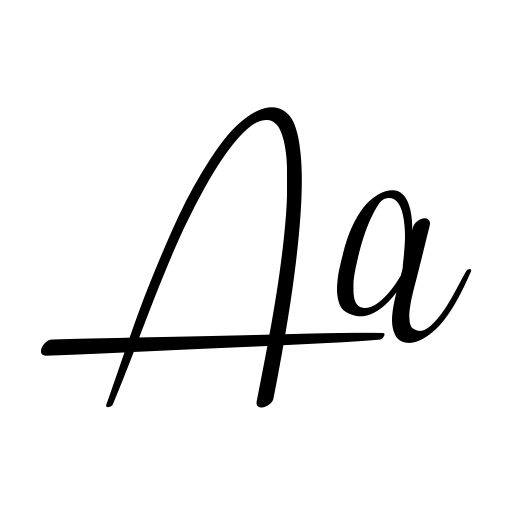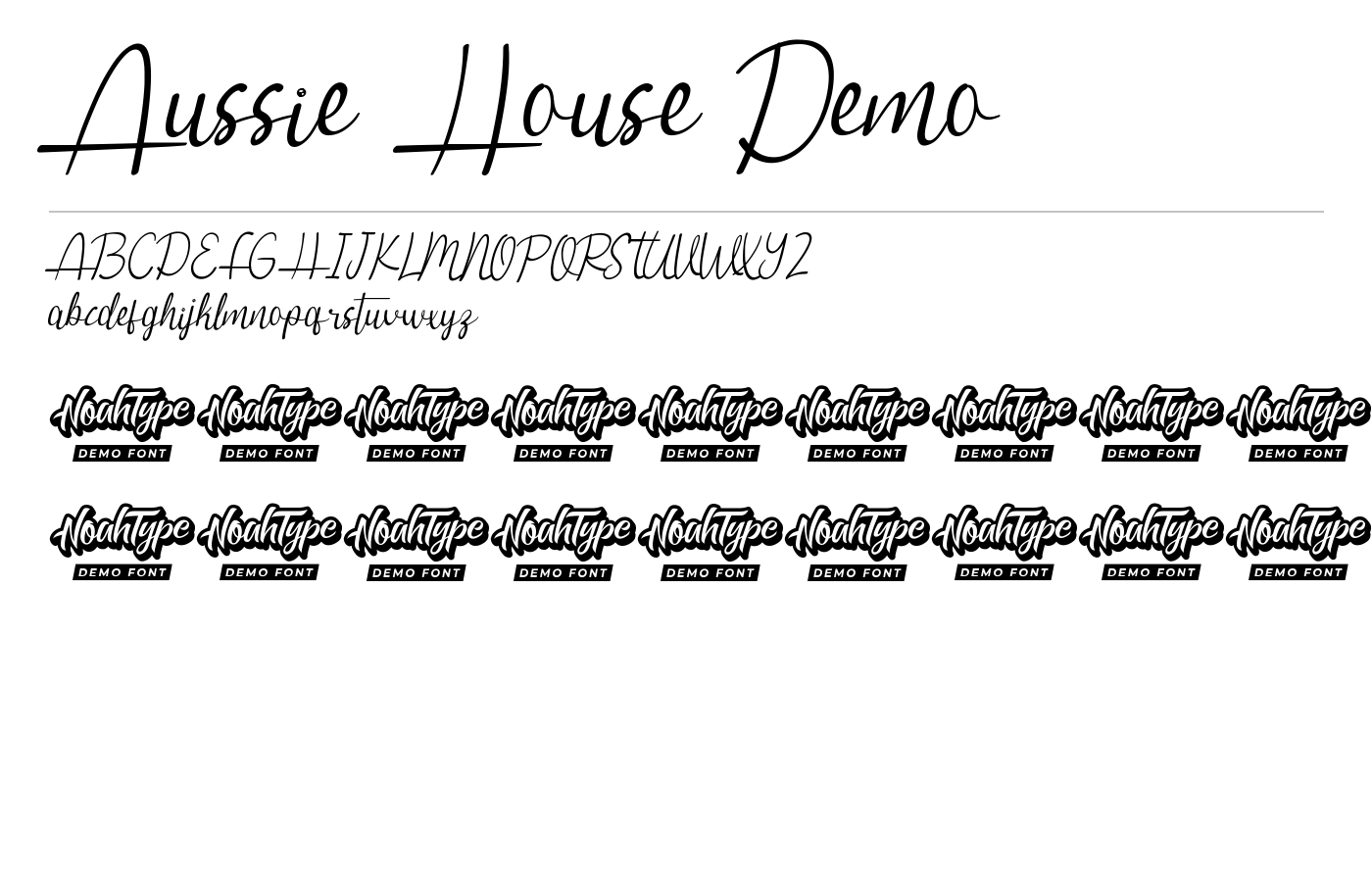
Aussie House Demo is a stylish, cursive script font with a casual and elegant flair, featuring smooth, flowing strokes and a distinctive underlined baseline that adds uniqueness. Its slender, slightly condensed letterforms showcase a handwritten feel, making it perfect for branding, invitations, and creative headlines where a friendly yet sophisticated touch is desired. This font shines in contexts that benefit from a personal and artistic vibe, creating an inviting and modern impression.
Aussie House Demo Font
About Aussie House Demo Font
| Font family | Aussie House Demo Font |
| Designer | Shalsha & Sarah Suci P |